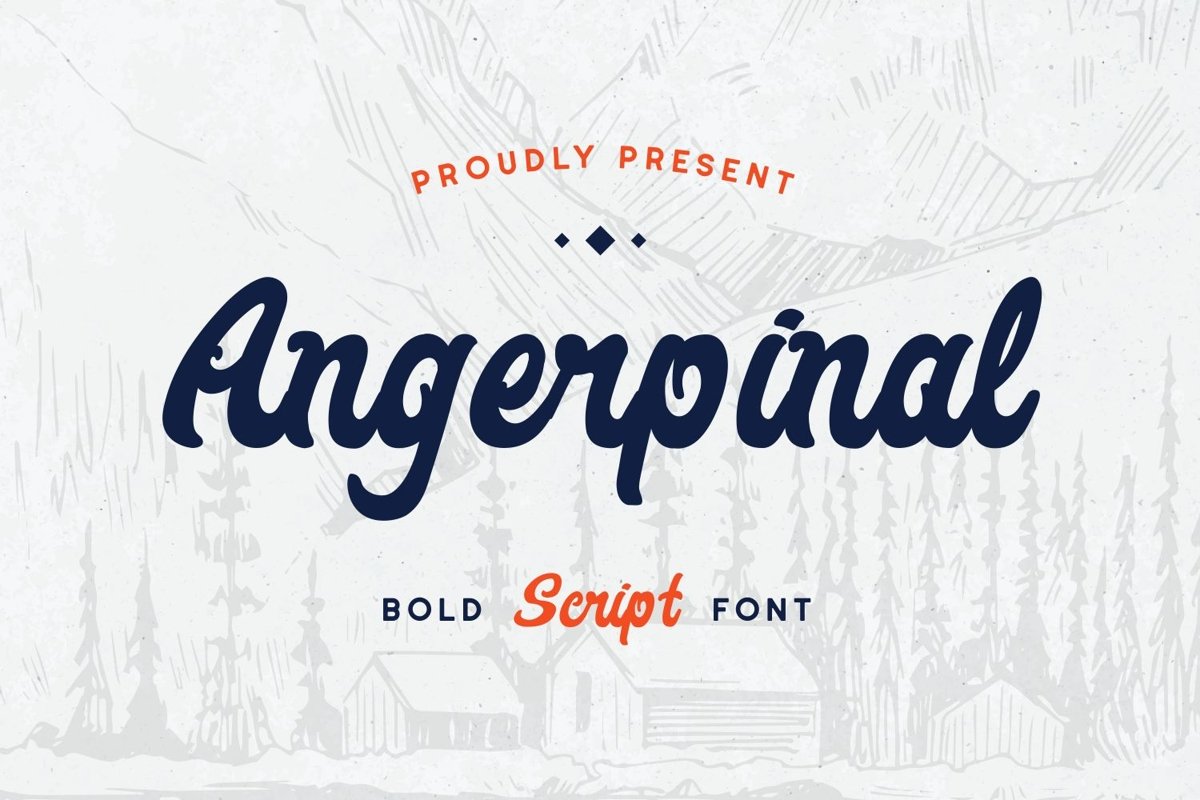
Angerpinal is a bold script come with casual and clean themes. It matches applies in some designs such as the logotype, brand, packaging, quotes, poster, shirt, book, invitation and more custom design. The features uppercase, lowercase, numeral, punctuation & symbol, multilingual support, PUA encoded (fully accessible without additional design software).